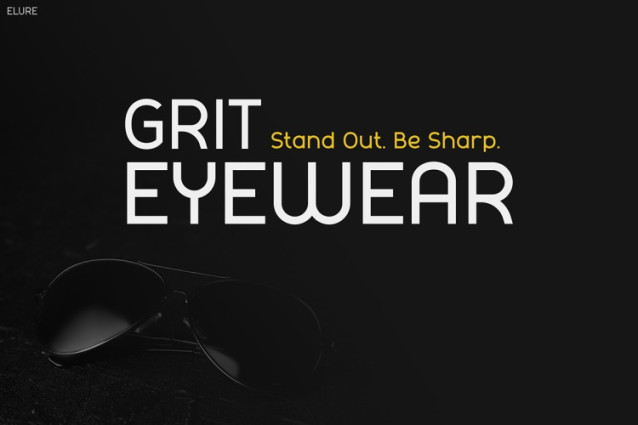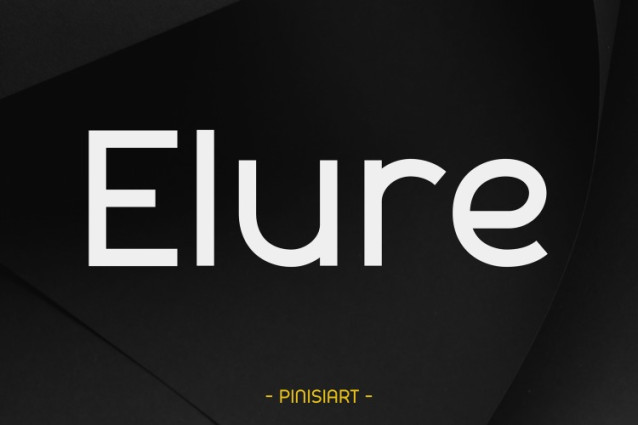
Elure Font
Elure Font is the perfect blend of clarity and personality. It features smooth curves, clean lines, and balanced spacing. Therefore, it instantly grabs attention in both digital and print media.
What makes this font unique is its futuristic yet friendly tone. Each letterform is designed with precision, but with soft edges that make it approachable. As a result, it offers both visual appeal and excellent readability.
Moreover, the font performs well in various use cases. You can use it in bold uppercase to create strong visual hierarchy. Alternatively, lowercase styles bring a more casual, modern feel. In addition, it maintains legibility across different screen sizes and formats.
Whether you’re designing an Instagram story, a web banner, or an app UI, ELURE delivers. It is stylish, yet subtle. It is functional, yet full of personality. That’s what makes it such a standout choice for contemporary visual content.